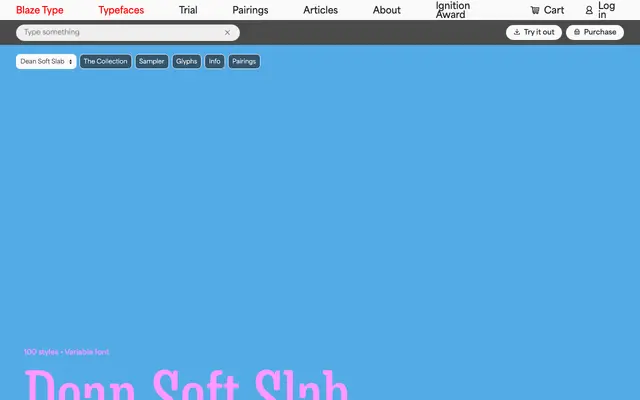
Dean Soft Slab
A large-scale soft slab serif available as a variable font across five widths and ten weights, each with matching italics, totalling 100 styles.
Spanning Compressed to Wide and Thin to Black, the family gives designers a broad tonal and spatial range within a single slab typeface. The softened serifs temper the robustness typical of Egyptian slabs, lending the family a more approachable character suited to both text and display use. Variable font versions are provided for each width subfamily, covering weight and italic axes.
A slab serif family with rounded, softened serifs across five width variants and ten weights, placing it firmly in the soft slab category rather than a hard geometric or Egyptian slab tradition.